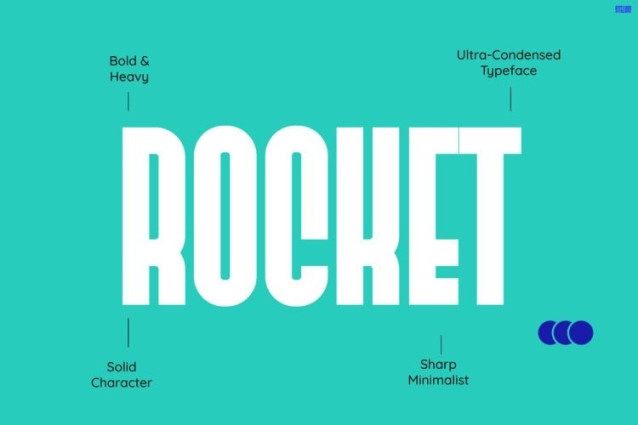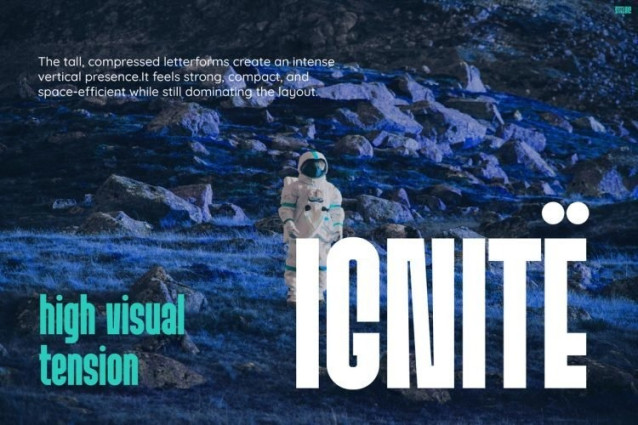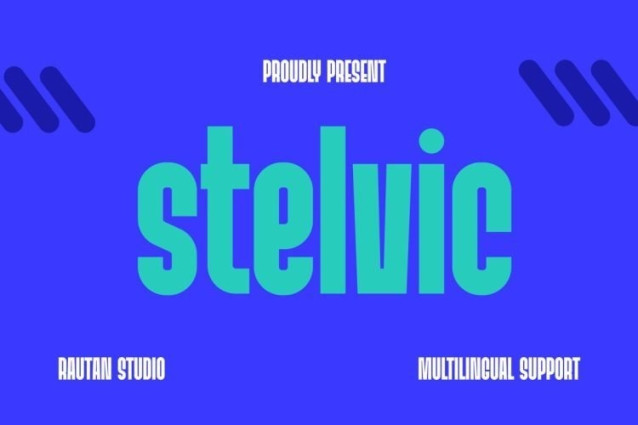
Stelvic Font
Stelvic Font is an ultra-condensed display sans-serif font featuring bold, heavy letterforms with a tall and commanding vertical presence. Built with sharp, minimalist cuts and solid geometric structures, it brings high visual tension and a modern, confident tone to any layout without relying on excessive decoration.
Best suited to high-impact applications, this typeface is natural for sports branding, activewear packaging, movie posters, game titles, event banners, and editorial headlines. Its space-efficient proportions work best at large display sizes where the clean, compressed characters can dominate the space with maximum clarity.